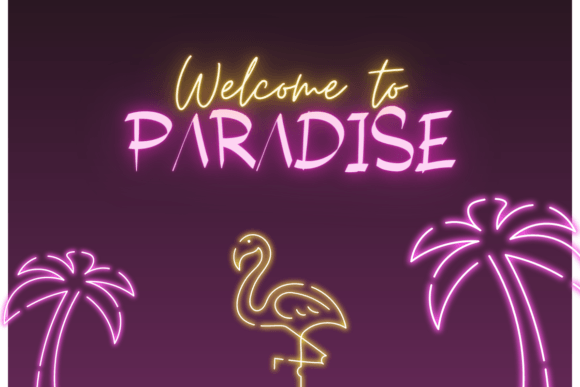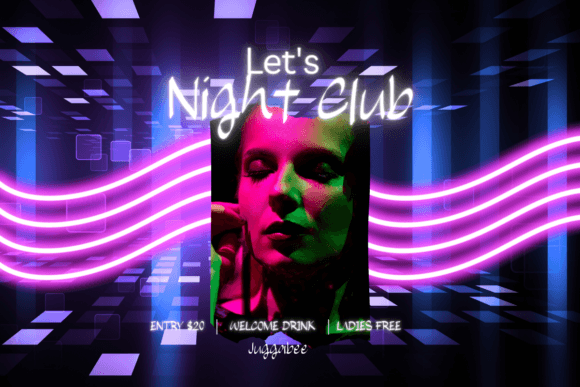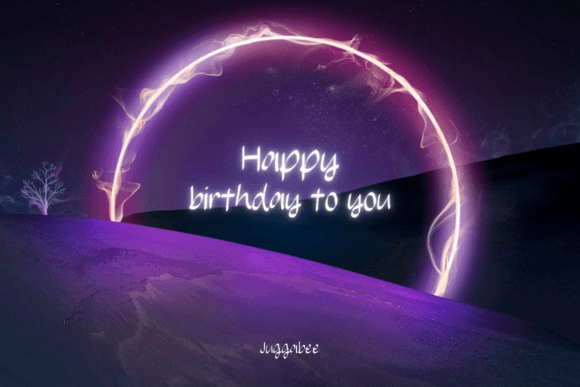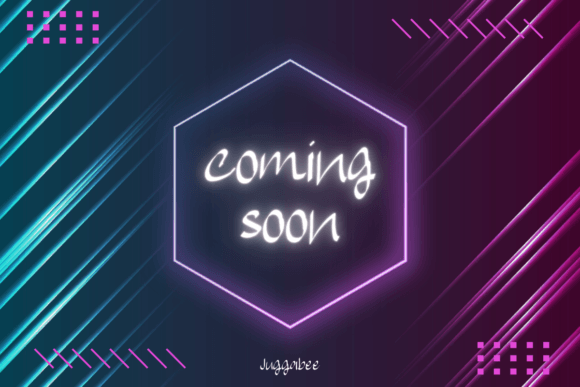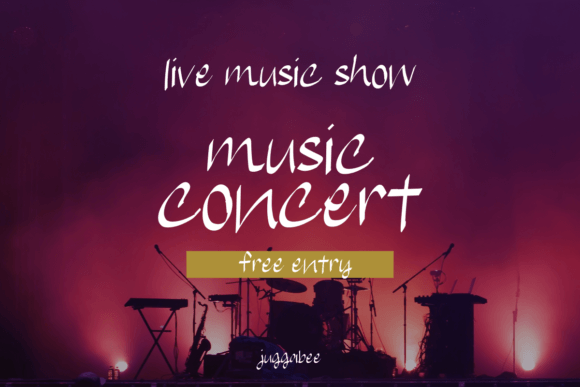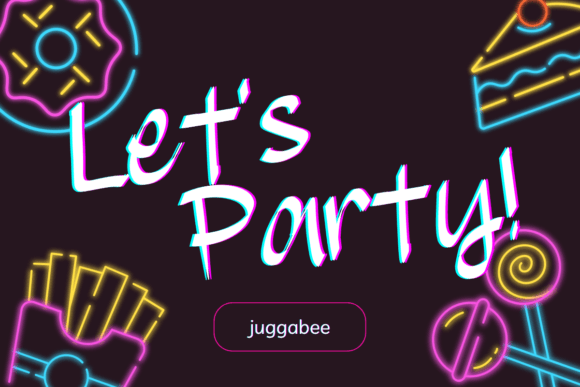
Introducing Grafatic Font: The Ultimate Choice for Cute and Playful Designs
Are you a designer or crafter looking for a font that can add a touch of whimsy and playfulness to your designs? Look no further than Grafatic Font! This versatile script font is designed to bring a cute and lively feel to your projects, making it perfect for a wide range of applications, from branding and packaging to invitations and crafts.
What Makes Grafatic Font So Special?
Grafatic Font stands out from other script fonts due to its unique feature: it includes many different alternatives for each lowercase letter. This means that you can mix and match different letterforms to create a truly one-of-a-kind look that reflects your brand’s personality or style. Whether you’re looking for a font that’s elegant, quirky, or downright playful, Grafatic Font has got you covered.
Key Features of Grafatic Font
- Versatile script font: Grafatic Font is designed to be versatile, making it suitable for a wide range of projects, from formal to informal.
- Multiple alternatives for each lowercase letter: With Grafatic Font, you get a range of alternative letterforms for each lowercase letter, giving you the flexibility to create a unique look.
- Cute and playful look: Grafatic Font is designed to add a touch of whimsy and playfulness to your designs, making it perfect for brands or projects that want to appear friendly and approachable.
How to Use Grafatic Font in Your Designs
Grafatic Font is easy to use and can be incorporated into your designs in a variety of ways. Here are a few ideas to get you started:
- Branding and packaging: Use Grafatic Font to create custom branding and packaging that stands out from the crowd.
- Invitations and events: Add a touch of whimsy to your invitations and event materials with Grafatic Font.
- Crafts and DIY projects: Grafatic Font is perfect for crafters and DIY enthusiasts who want to add a personal touch to their projects.
Tips for Getting the Most Out of Grafatic Font
To get the most out of Grafatic Font, here are a few tips to keep in mind:
- Experiment with different letterforms: Don’t be afraid to try out different letterforms to create a unique look that reflects your brand’s personality.
- Pair with other fonts: Grafatic Font pairs well with other fonts, so don’t be afraid to experiment with different combinations.
- Use it sparingly: While Grafatic Font is perfect for adding a touch of whimsy to your designs, it’s best to use it sparingly to avoid overwhelming the viewer.
In conclusion, Grafatic Font is a versatile script font that’s perfect for designers and crafters who want to add a touch of whimsy and playfulness to their designs. With its multiple alternatives for each lowercase letter, Grafatic Font offers a level of flexibility that’s hard to find in other fonts. Whether you’re looking for a font for branding, packaging, invitations, or crafts, Grafatic Font is the ultimate choice.